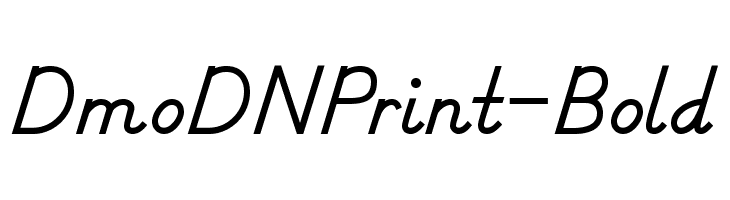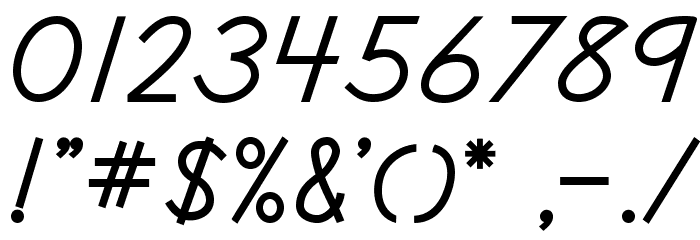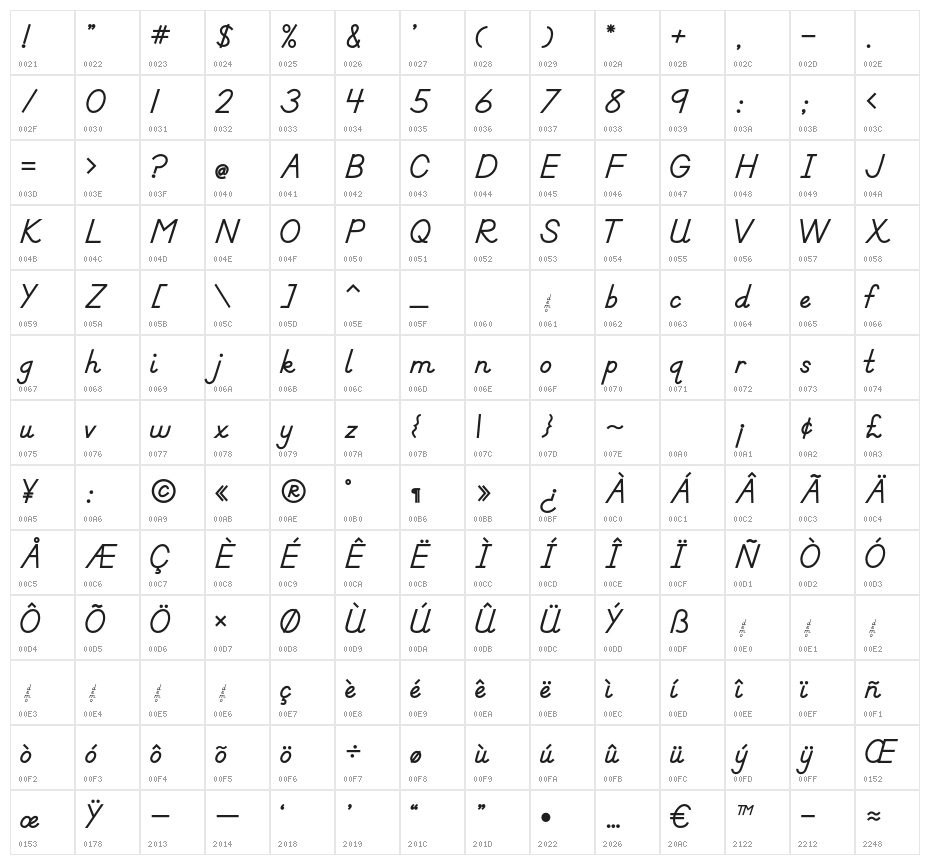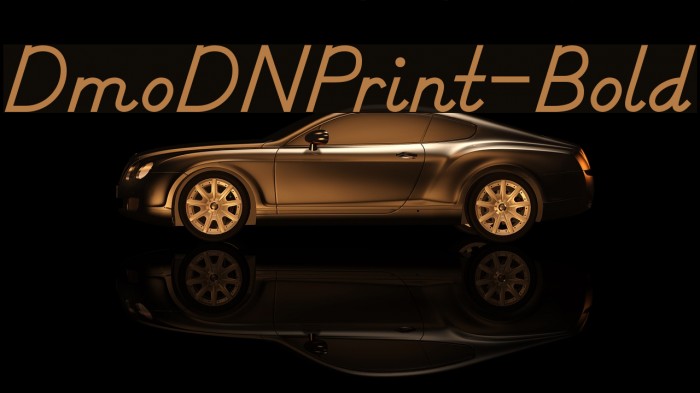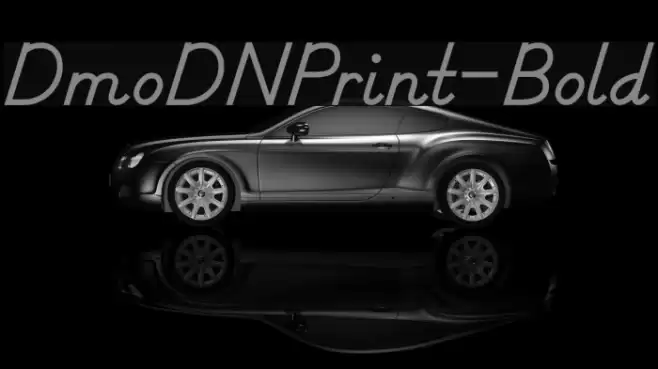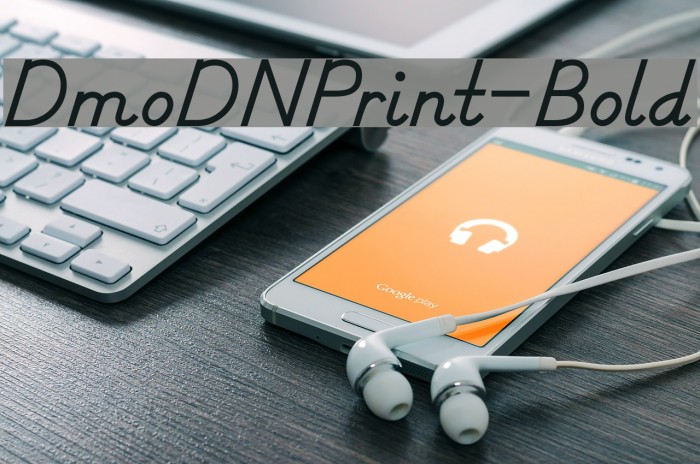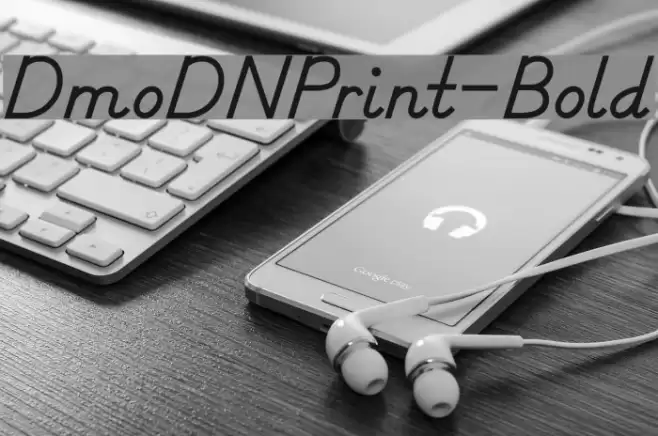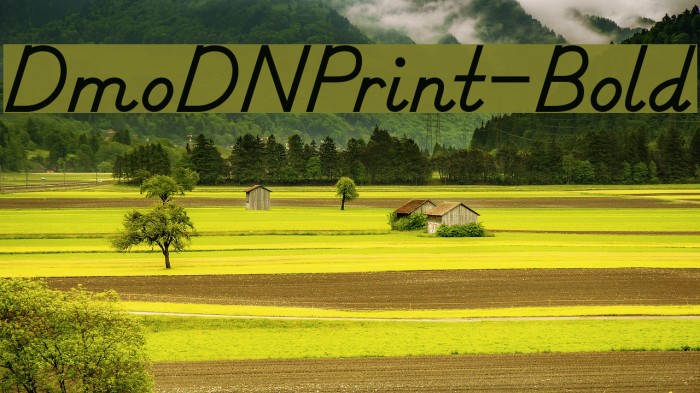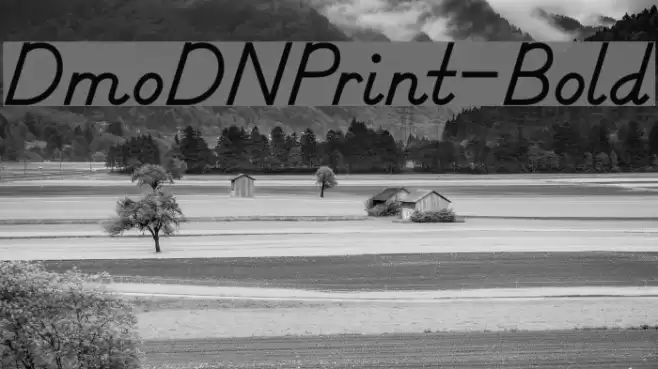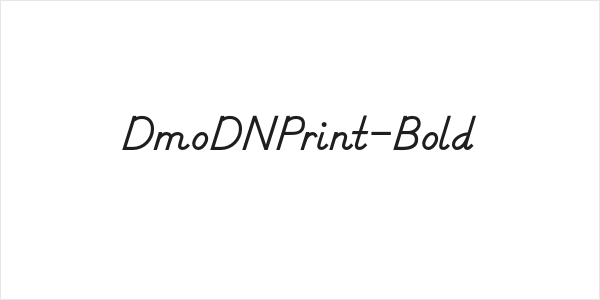
DmoDNPrint-Bold Font
DmoDNPrint-Bold Description
This font features a dynamic and flowing script style with a bold presence. The uppercase letters are slightly slanted, adding a sense of movement and elegance. The lowercase letters maintain a consistent flow, with smooth curves and a connected feel. Numbers are clear and bold, matching the overall style. Special characters are well-integrated, maintaining the script's fluidity. The font's boldness makes it stand out, while its script nature adds a touch of sophistication.
| Proposed Projects | Ideal for branding, invitations, and elegant signage where a bold yet sophisticated script is desired. |